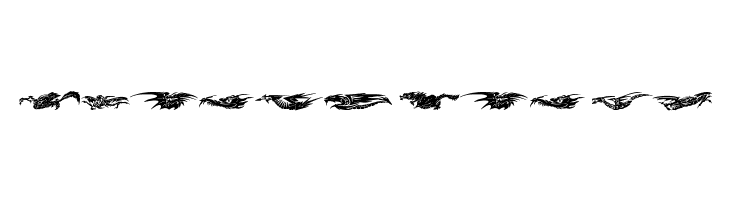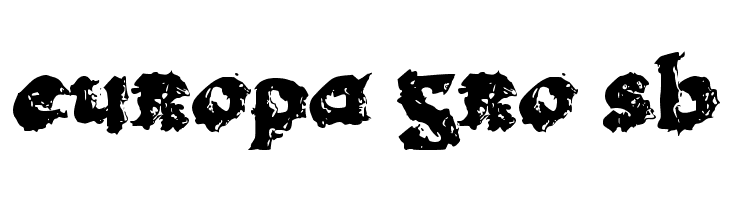
A bold, geometric font with strong, block-like characters and high contrast.
A bold, angular font with a medieval, fantasy-inspired design.
An elegant script font with intricate swashes and flowing lines.
A playful, rounded font with a whimsical and uniform design.
A bold, decorative font with intricate, swirling designs and tight character spacing.
A bold, hand-painted style font with expressive, brush-like strokes.
A bold, playful handwritten font with dynamic strokes and a casual feel.
A playful, handwritten font with smooth curves and a whimsical style.
A bold, gothic-inspired font with sharp, angular edges and intricate details.
A casual, handwritten font with bold, irregular strokes and a playful appearance.
A bold, geometric font with a futuristic and abstract style.
A playful, rounded font with consistent stroke width and a whimsical style.
A playful, handwritten font with a whimsical and friendly style.
A bold, angular font with a futuristic and geometric design.
A bold, dynamic font with elongated, slightly curved characters and a modern gothic flair.
A bold, medieval-inspired font with sharp, angular edges.
A bold, angular font with a dynamic slant and striking visual impact.
A bold, pixelated font with a retro digital style.
A bold, brush-style font with dynamic strokes and an artistic flair.
An elegant, flowing script font with ornate uppercase and cohesive lowercase characters.
A bold, geometric font with playful and abstract character shapes.
A bold, geometric font with a futuristic and modern design.
A bold, geometric italic font with a futuristic and dynamic style.
A geometric, futuristic font with bold, abstract shapes and symmetrical design.
A bold, italicized decorative font with geometric and modern elements.